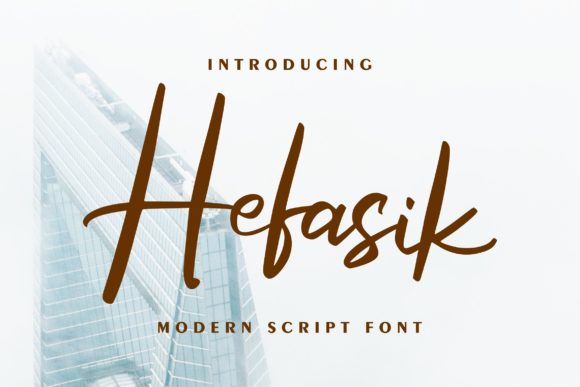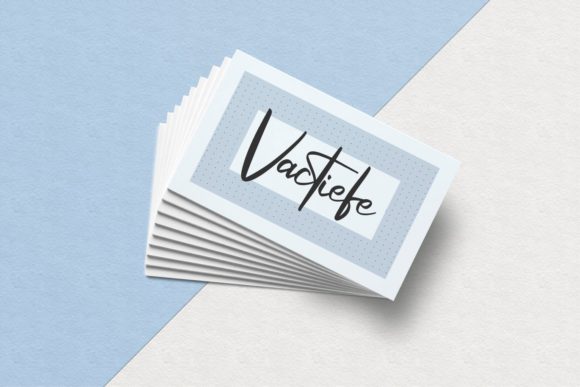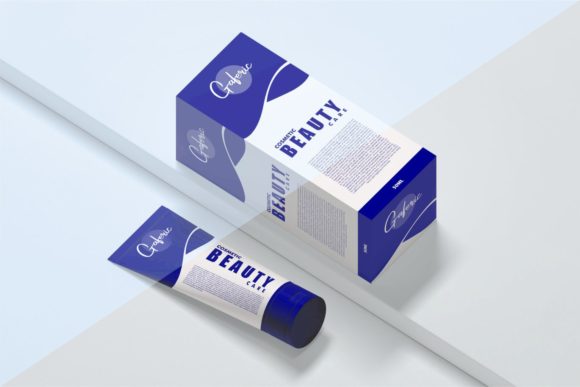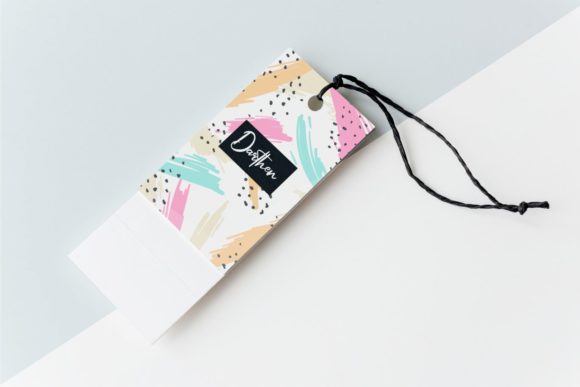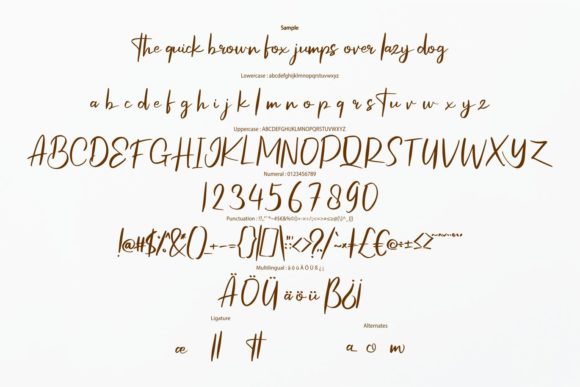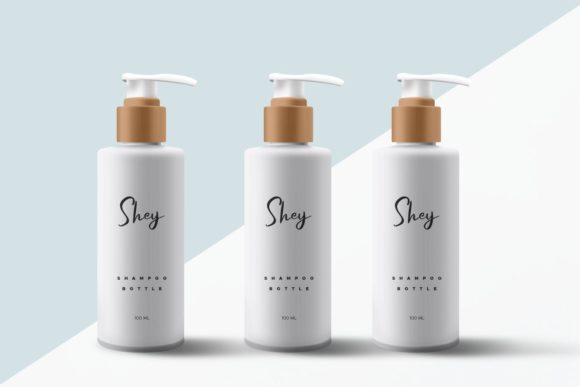
About Hefasik Font
Indulge in the beauty and elegance of Hefasik, a delicate handwritten font that exudes sophistication and charm. Its meticulously crafted letters showcase a perfect balance between grace and readability, making it a true masterpiece in the realm of typography. Prepare to be captivated by its versatile style and let your creativity soar as you embark on a journey of creating spectacular designs.
With Hefasik, every project becomes a work of art. Its distinct and well-rounded letterforms add a touch of refinement and elegance to any design. From logos and branding materials to wedding invitations, quotes, and beyond, Hefasik elevates your creations with its timeless appeal. Whether you’re aiming for a classic, romantic, or modern look, this font effortlessly adapts to suit your vision.
Each stroke of Hefasik tells a story, inviting your audience to immerse themselves in the beauty of your design. Its delicate curves and intricate details create a sense of craftsmanship and attention to detail, leaving a lasting impression on anyone who encounters your work. Let Hefasik be the catalyst for your creative expression and watch as your designs come to life with a touch of elegance and sophistication.
The versatility of Hefasik knows no bounds. Its well-designed glyphs and extensive character set provide you with a wide range of creative options. Add flourishes, ligatures, and decorative swashes to embellish your designs and add a personalized touch. Hefasik is not just a font; it’s a tool that empowers you to bring your creative visions to reality.
Whether you’re a professional designer or a passionate enthusiast, Hefasik is the perfect companion for all your design endeavors. Its delicate and elegant nature inspires you to explore new possibilities, experiment with different layouts, and create designs that leave a lasting impression. Let Hefasik be your go-to font for projects that require a touch of sophistication and timeless beauty.
Embrace the beauty of Hefasik and unlock a world of creative possibilities. With its versatile style, impeccable craftsmanship, and graceful charm, this font is sure to become a favorite in your design toolkit. Fall in love with Hefasik and let it bring a touch of elegance to your spectacular designs.